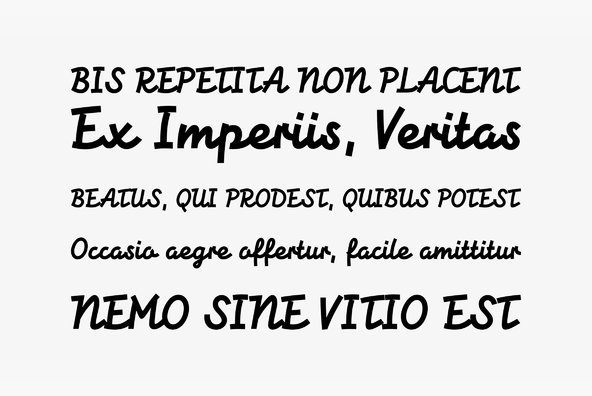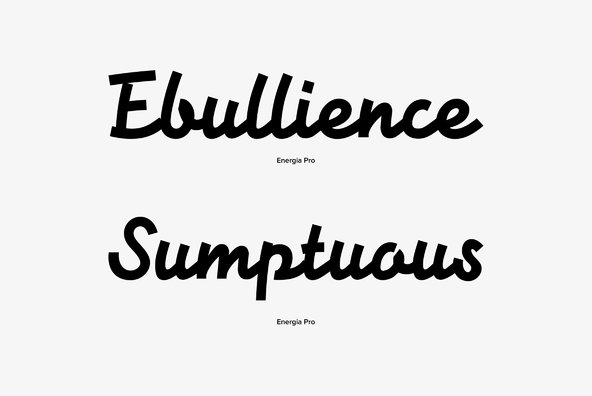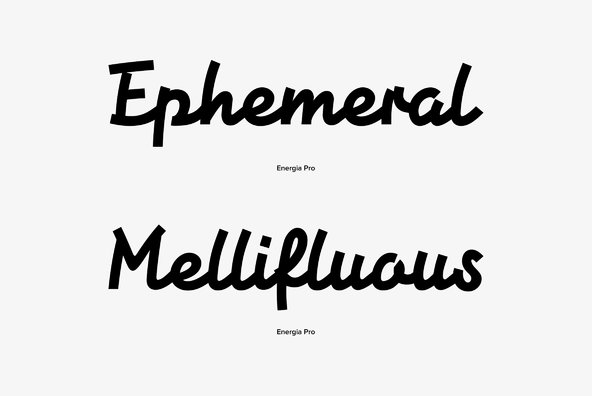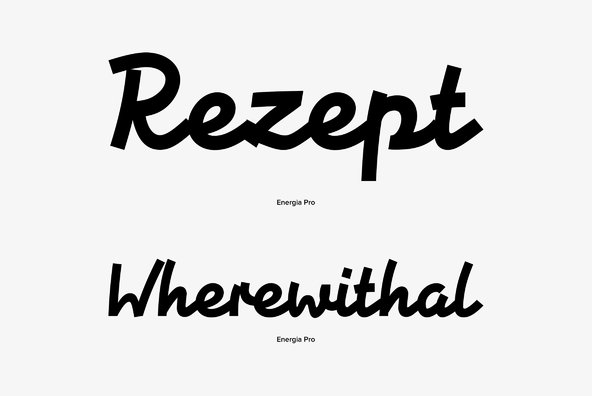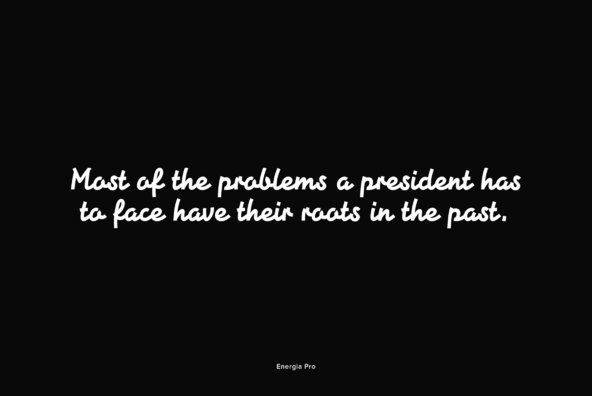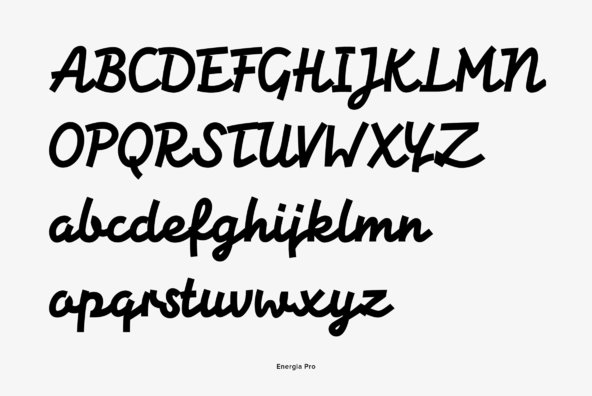
Energia Pro
Energia Pro is yet another new, charming and whimsical profonts script typeface designed by Ralph M. Unger. Its design is based on Arno Drescher's Energos from 1932, but Unger completely redesigned the typeface, extended and completed the character set and digitally remastered the font. Energia Pro is a joining handwritten-like script well suited for comics, book titles, and the like. Standard at profonts, Energia Pro contains a large set of manually created ligatures and glyph variants to make it a perfect OpenType Pro connecting script.